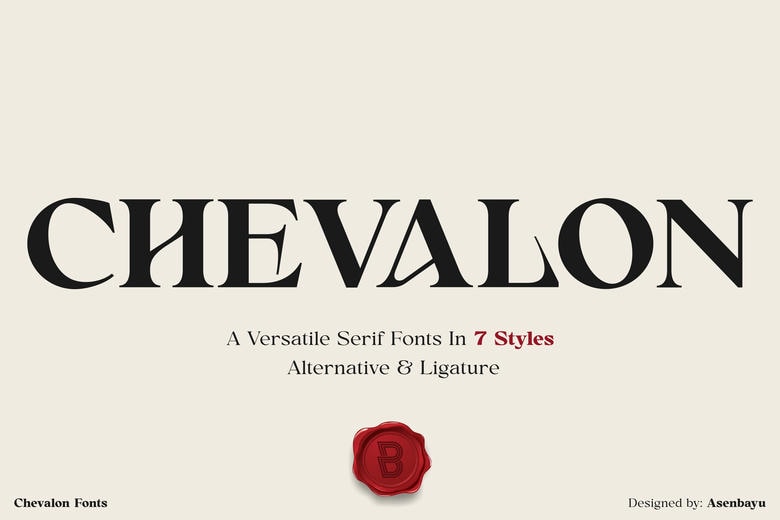
Chevalon Font
Chevalon is a versatile serif font consisting of 7 styles. Inspired by medieval roman letters, Chevalon is like a glorious horse that has a strong yet elegant appearance. Each Chevalon letter is carefully crafted and can help you complete various projects such as luxury brand logos, journals, business cards, headlines, products, social media posts, web, and much more.
Chevalon Serif Font